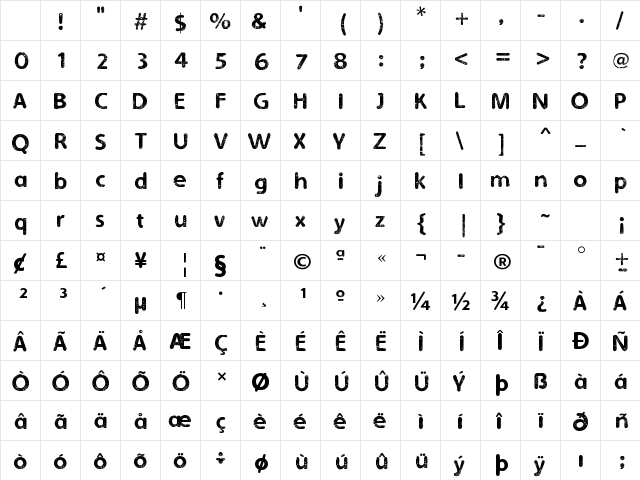
Eroded 2 Much embraces imperfection - its rough, textured character adds raw authenticity to designs that want to feel lived-in and unconventional.
Pro Tip: Use Eroded 2 Much at larger sizes where the texture and irregularity of each letterform can be clearly seen - it loses its character at small sizes.